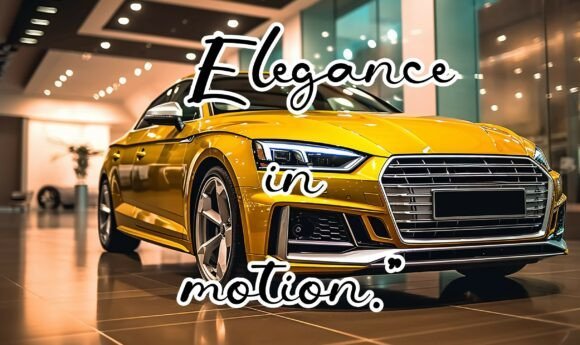
Unlock Your Creative Potential with Beyond Font
Do you remember that moment when a single design element clicks into place, and suddenly your entire project feels cohesive and compelling? For many of us, it’s a moment of pure creative joy. That’s exactly what the Beyond Font is designed to deliver – a sophisticated, modern look that elevates any design and sets it apart from the ordinary.
As a designer, you’re always on the lookout for tools that can help you push the boundaries of your creativity. That’s where the Beyond Font comes in – a stylish and elegant display font that’s perfect for branding, logos, headlines, and more. With its clean lines, smooth curves, and confident presence, this font is a valuable addition to any designer’s toolkit, helping you create designs that are both beautiful and highly readable.
Design Review: Beyond Font
Overall, I’m impressed with the versatility and customization options of Beyond Font. ✨ The extensive library of font styles, from elegant script fonts to bold sans-serif fonts, offers endless possibilities for designers. ✨ The intuitive interface makes it easy to navigate and find the perfect font for any project.
However, there are some limitations to consider. ⚠️ The font rendering can be inconsistent across different devices and browsers, which may affect the overall look and feel of the design. ⚠️ Additionally, the font library may not be as extensive as some other font platforms.
Overall, I’d give Beyond Font 4 out of 5 stars. While it’s not perfect, its strengths far outweigh its weaknesses. With a little patience and experimentation, designers can create stunning designs using Beyond Font.
“Beyond Font” is ideal for:
- Creating unique and visually appealing designs for branding, marketing, and advertising.
- Adding a professional touch to presentations, documents, and reports.
- Experimenting with custom